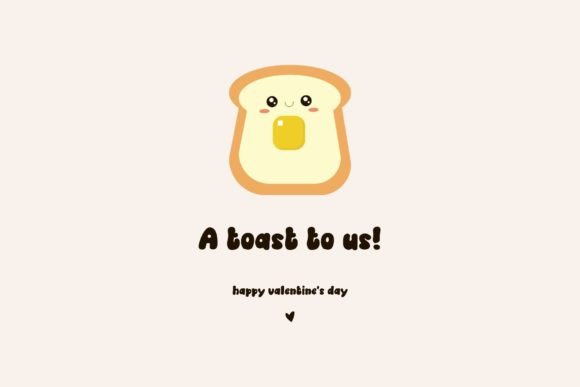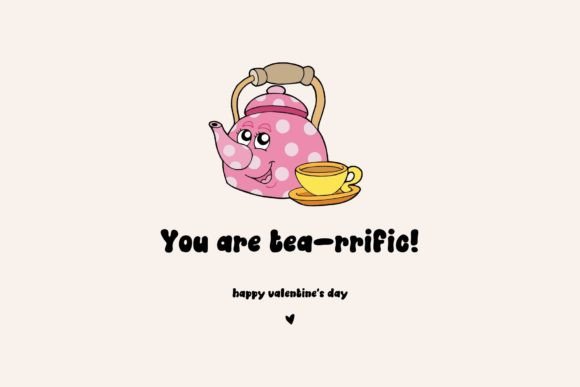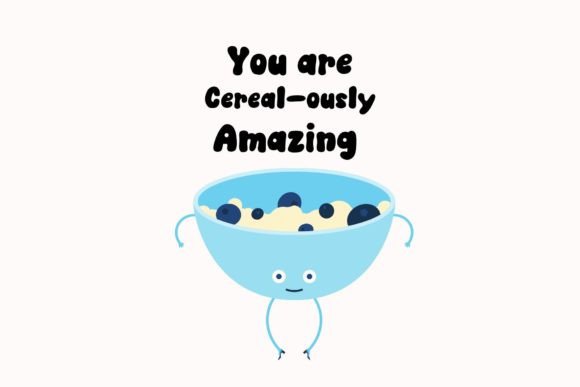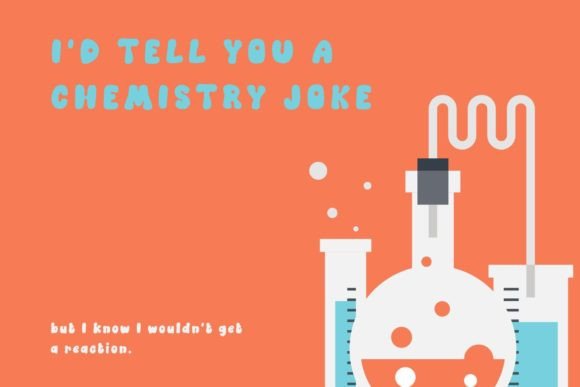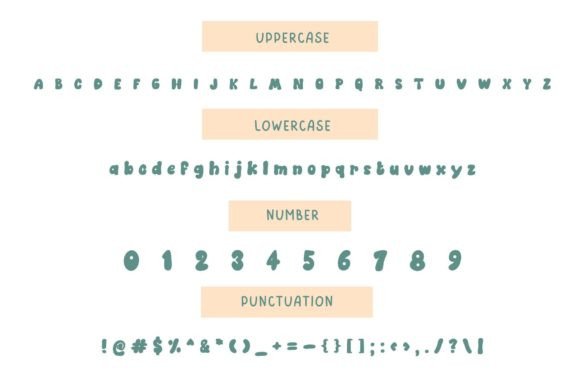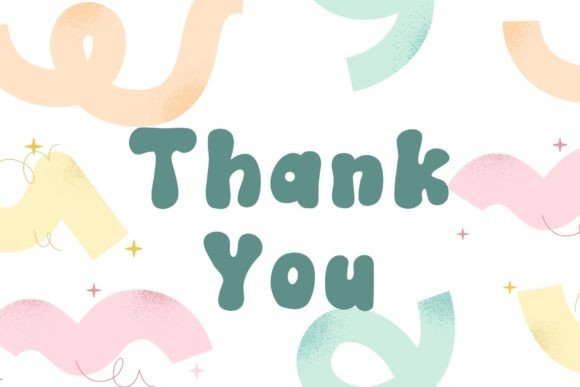
The Retro Charm of Archer Font: A Designer’s Delight
I’ll never forget the time I was working on a project for a client who wanted a retro-themed logo. I had spent hours browsing through font libraries, but nothing seemed quite right. That was until I stumbled upon Archer Font. Its cool, groovy vibe instantly caught my attention, and I knew I had found the perfect fit. In this article, I’ll share my experience with Archer Font, its features, and how to make the most of it in your designs.
An Honest Review of Archer Font
What I Love About Archer Font
- ✨ Playful and Authentic: Archer Font embodies the perfect blend of playfulness and authenticity, making it ideal for a wide range of projects.
- ✅ Highly Versatile: From blog posts to logos, branding, ads, invitations, and more, Archer Font is a versatile choice that can adapt to various design needs.
- 💥 Retro Charm: The font’s retro vibe is sure to add a unique touch to your designs and make them stand out.
While Archer Font is an excellent choice, there are a few things to keep in mind:
- 🤔 Legibility at Small Sizes: Like many display fonts, Archer Font may not be the best choice for body text or small font sizes. It’s best used for headlines or titles.
- ⚠️ Glyph Limitations: While Archer Font has a wide range of glyphs, it may not have every special character or symbol you need. Be sure to check the font’s capabilities before using it for a project.
The Backstory of Archer Font
Archer Font was designed with the intention of capturing the carefree spirit of the 1960s and 1970s. Its creator drew inspiration from vintage posters, logos, and typography of the era, aiming to create a font that would evoke a sense of playfulness and authenticity.
Q: What type of projects is Archer Font best suited for?
A: Archer Font is perfect for a wide range of projects, including blog posts, logos, branding, ads, invitations, greeting cards, planners, photo albums, decorations, and more.
Q: Is Archer Font available in different weights or styles?